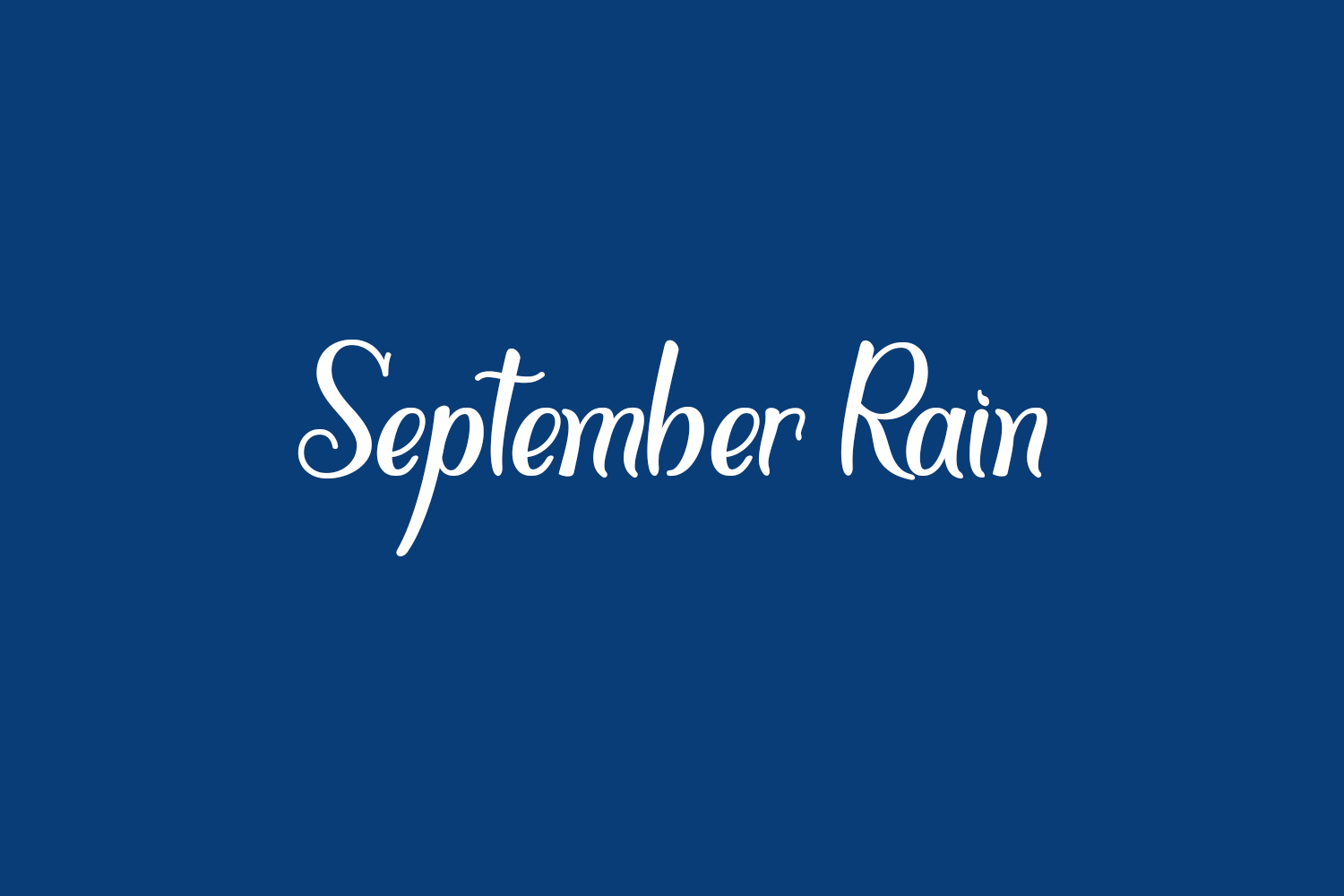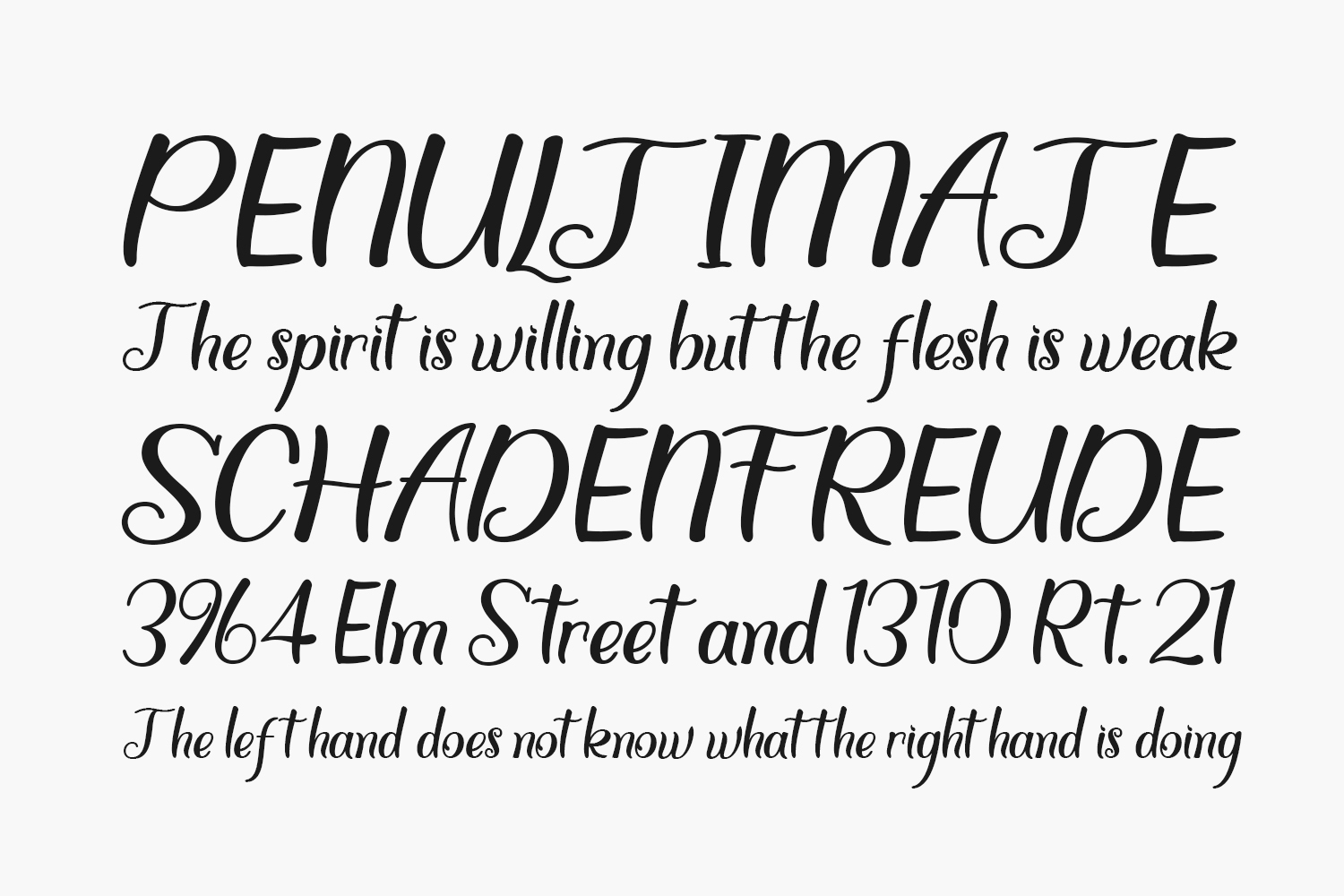
September Rain Free Font is a beautiful and flowing script font. This gentle font will look gorgeous on a variety of design ideas. September Rain Free Font was designed by Nabil Fahmi and is free for personal use only. Please purchase the full version for commercial use.
Designed by Nabil Fahmi